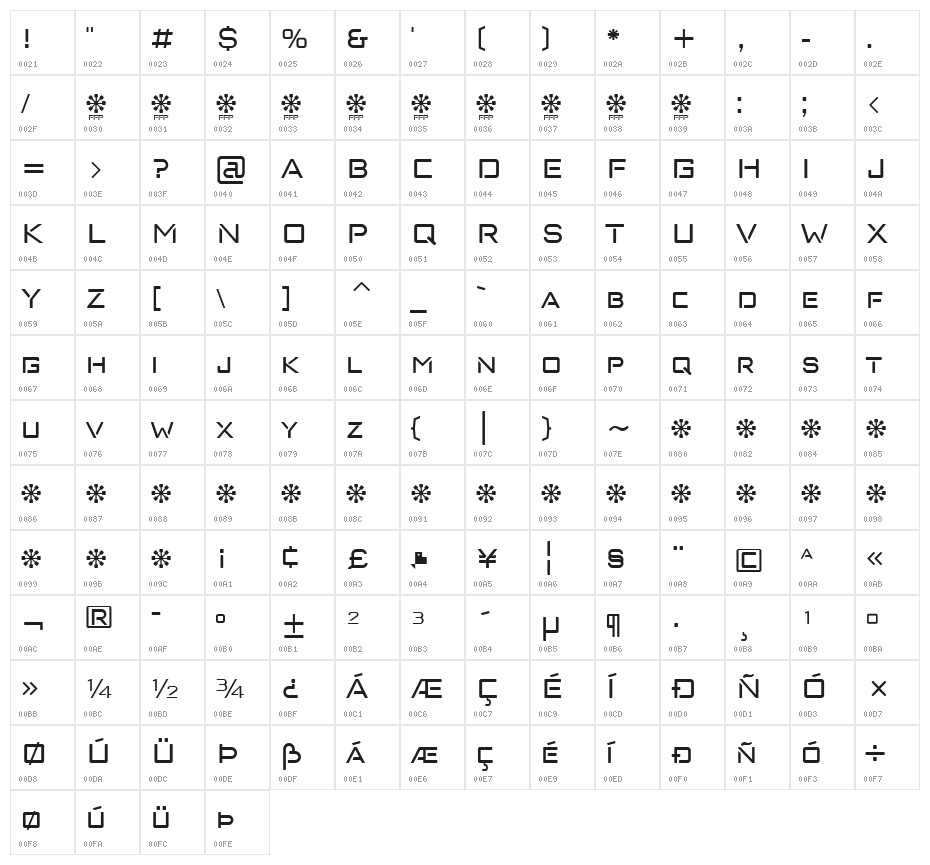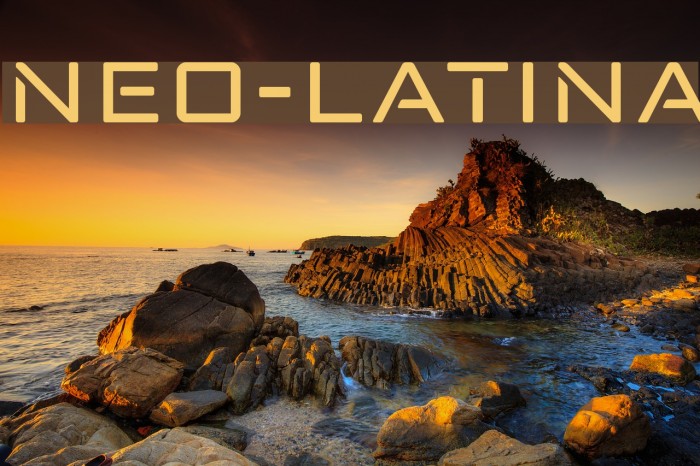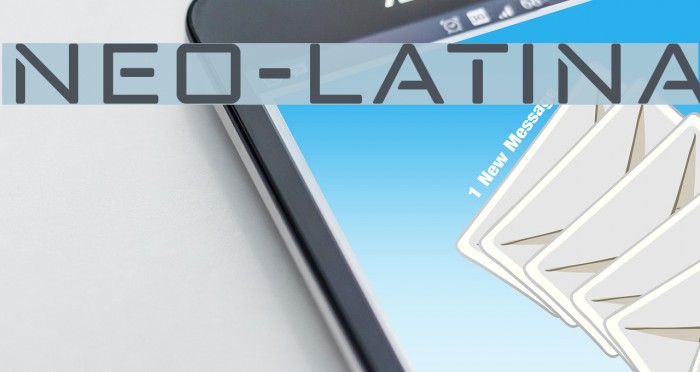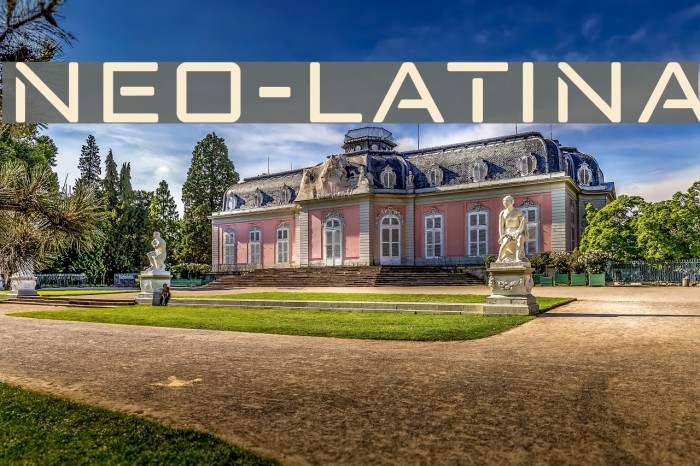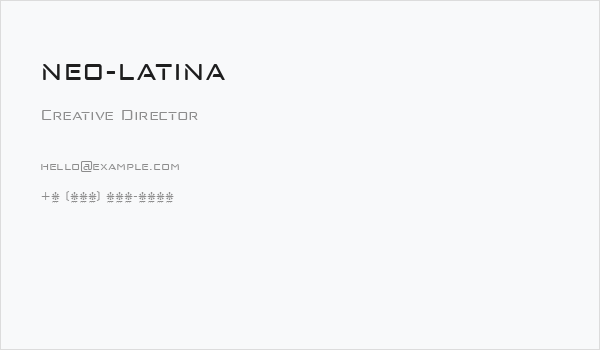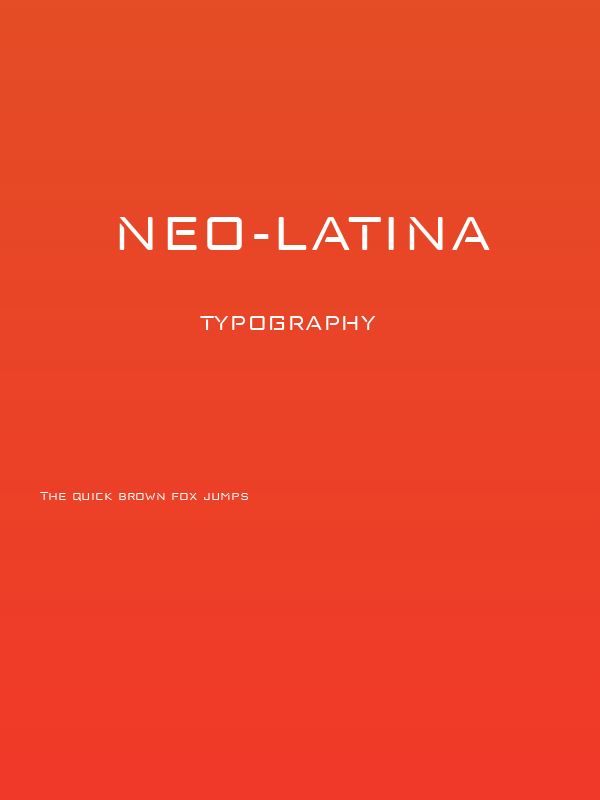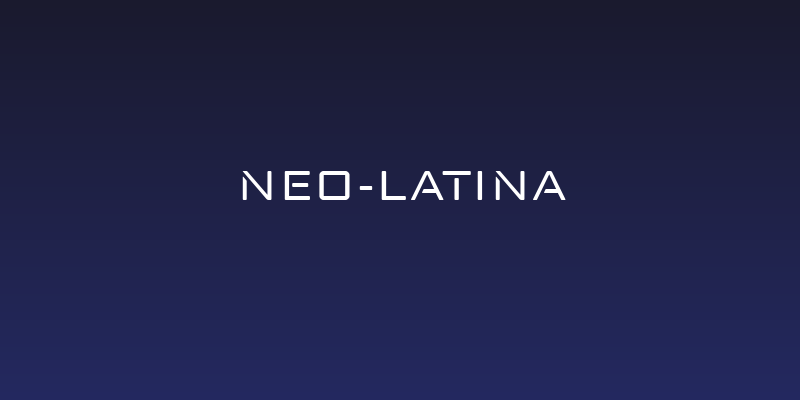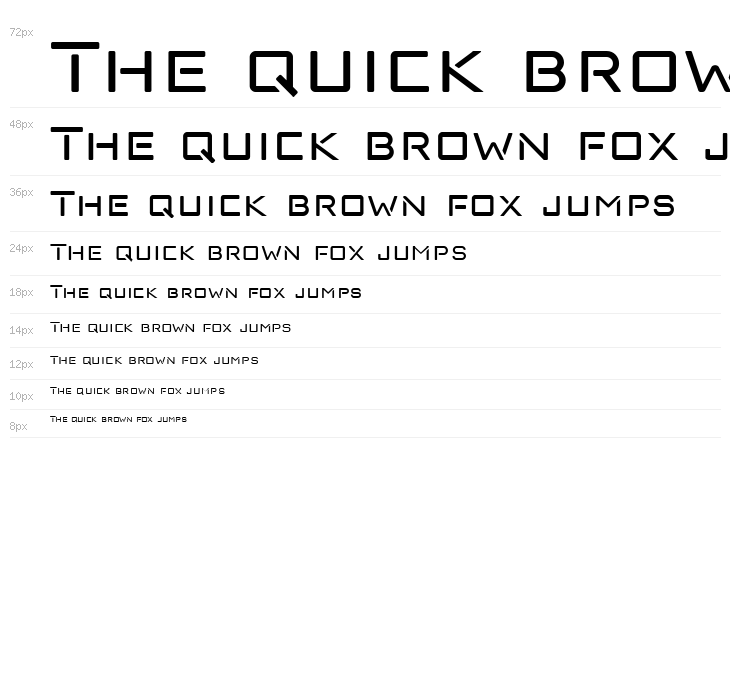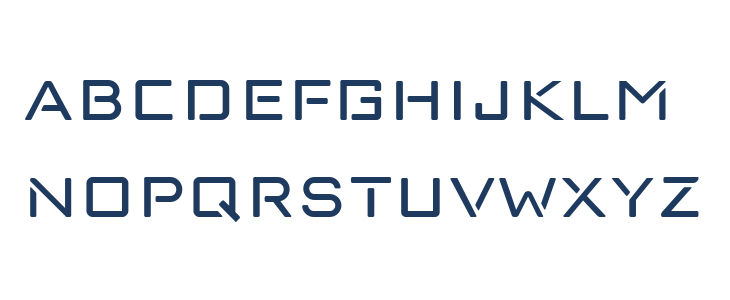
neo-latina Font
neo-latina Description
This font features a modern, geometric design with a clean and structured appearance. The characters are formed with straight lines and sharp angles, giving it a futuristic and technical feel. The uppercase letters are uniform in height, while the lowercase letters maintain a consistent style that complements the uppercase set. The numerals and special characters follow the same geometric pattern, ensuring a cohesive look across all glyphs. The font's design is minimalistic yet bold, making it suitable for projects that require a contemporary and innovative aesthetic.
| Use Case | Headlines, Logos, Digital Interfaces |
| Proposed Projects | Ideal for technology branding, digital interfaces, modern advertising, and futuristic design projects. |